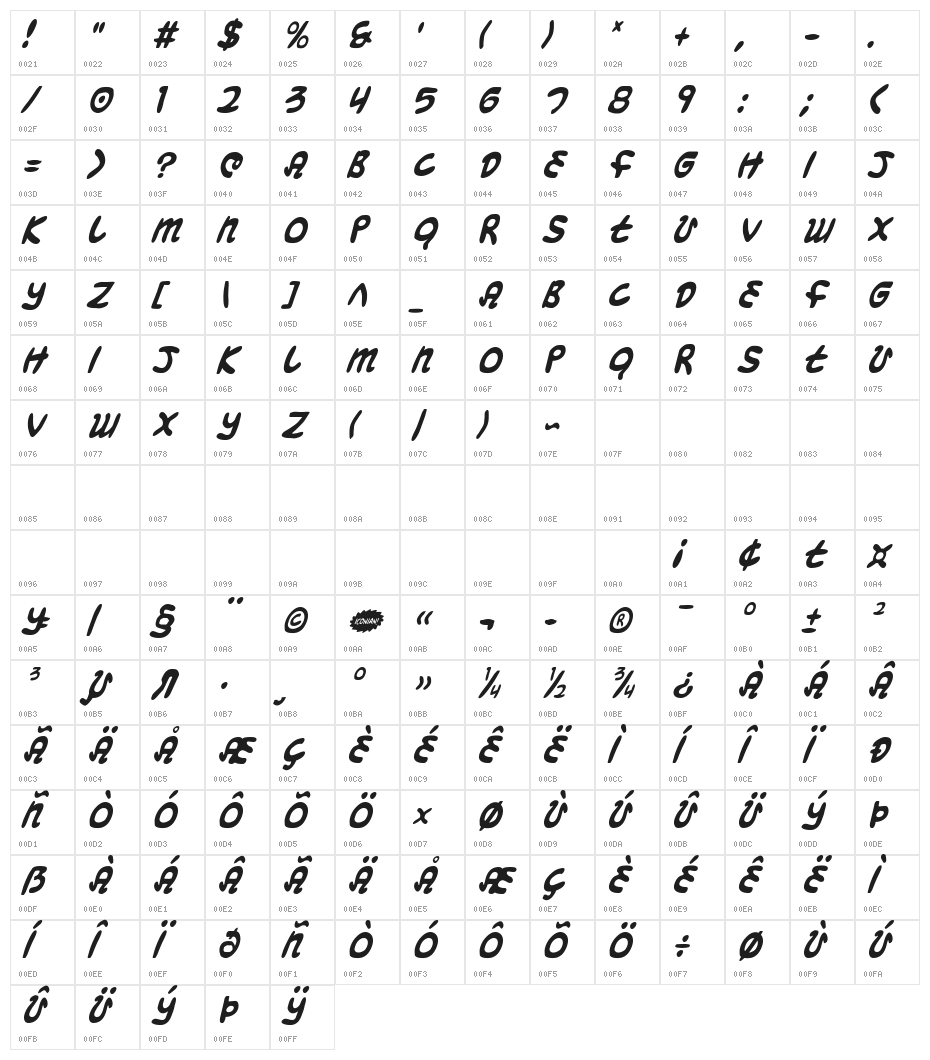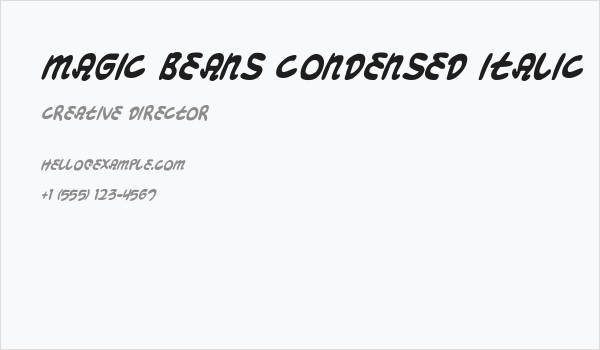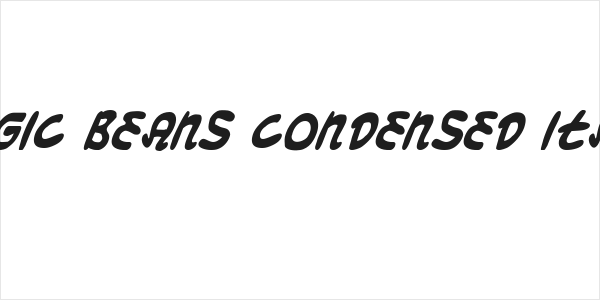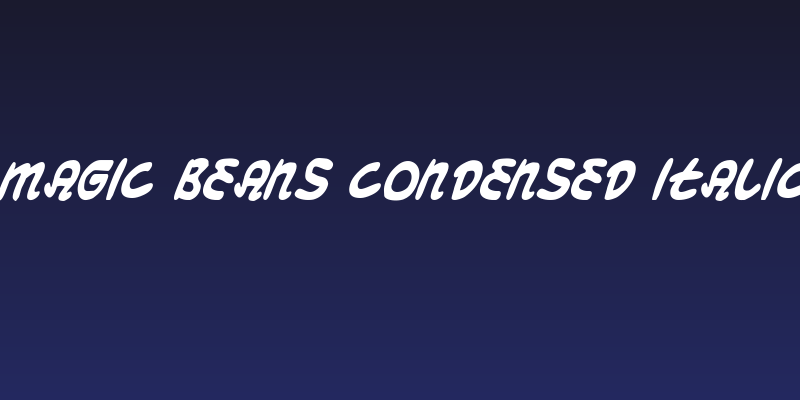
Magic Beans Condensed Italic Font
Magic Beans Condensed Italic Description
This font features a playful and dynamic style with a condensed and italicized form. The characters are bold and rounded, giving a sense of energy and movement. The strokes are thick and consistent, providing a strong visual impact. The letters are closely spaced, enhancing the compact appearance. This font is ideal for creating eye-catching designs that require a touch of whimsy and boldness. The uppercase and lowercase letters maintain a cohesive style, while the numerals and special characters complement the overall design.